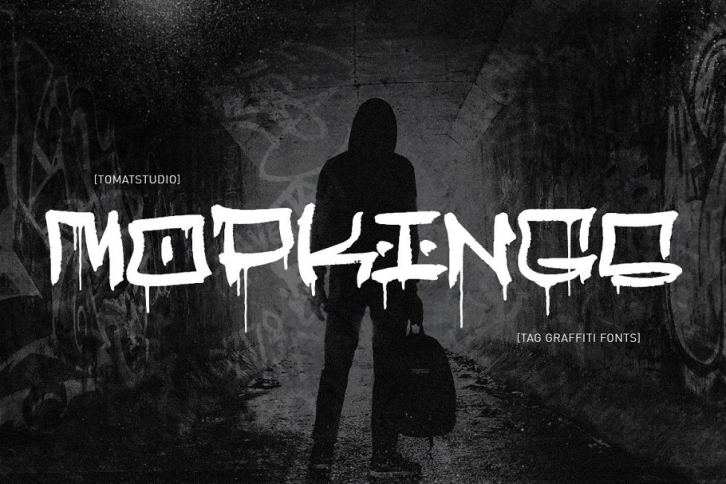
Inspired from real street scene, sometimes graffiti artist using big marker to tag his name. a big letter with full of drips usually we see in sign, wall, train, car, and this is high level of vandalism.
But now you can create that without caught police with our "MopKings" Fonts. Perfect for street art / graffiti/ hip-hop/ urban design style. This one also collabs with "Nick 23" Yogyakarta's finest graffiti artist, make it more realistic!